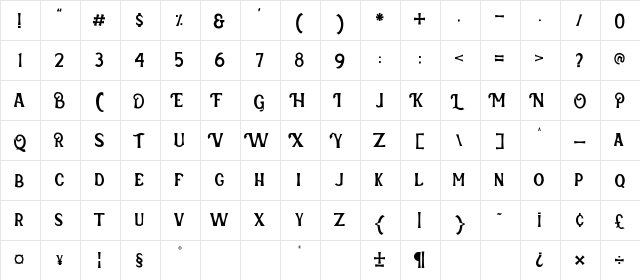
Verveda 01
Design Context for Verveda Typeface
Verveda is a composed and adaptable typeface that performs quietly and consistently across a wide range of design contexts.